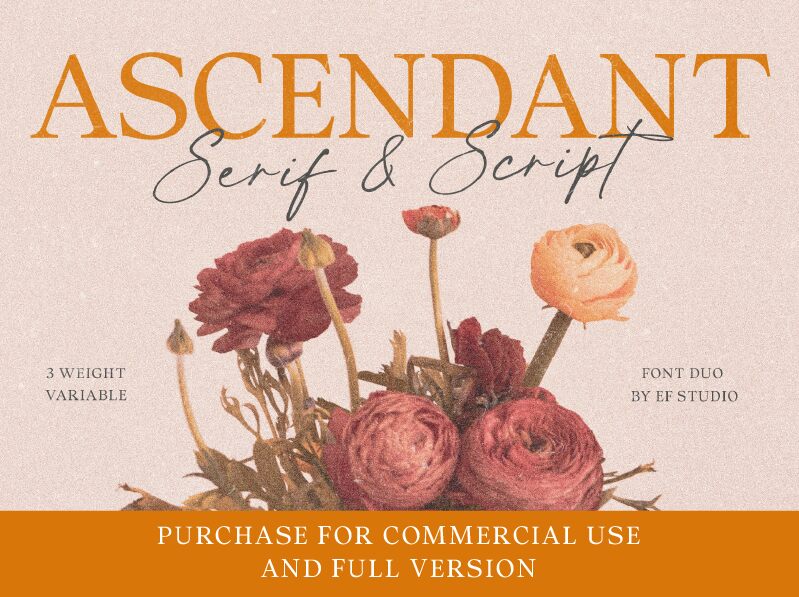
Ascendant Serif, crafted by the visionary minds at Ef Studio, exudes a timeless elegance with its classic serif style. This font harmoniously blends contemporary flair with traditional typographic principles, creating a versatile tool for an array of design endeavors. The subtle curves and sharp, clean lines of Ascendant Serif lend it both readability and character, making it an ideal choice for print media, sophisticated branding projects, and high-impact digital content.
Its aesthetic appeal lies in the balance between function and form; the typeface is as much a visual statement as it is a vehicle for written communication. Whether embossed on the cover of a novel or gracing the interface of an app, Ascendant Serif's refined appearance assures that your project will stand out with professionalism and style. With its potential to elevate any creative project, Ascendant Serif promises to be a font that designers reach for time and again.
This font is a Font Duo. There are Serif and Script.